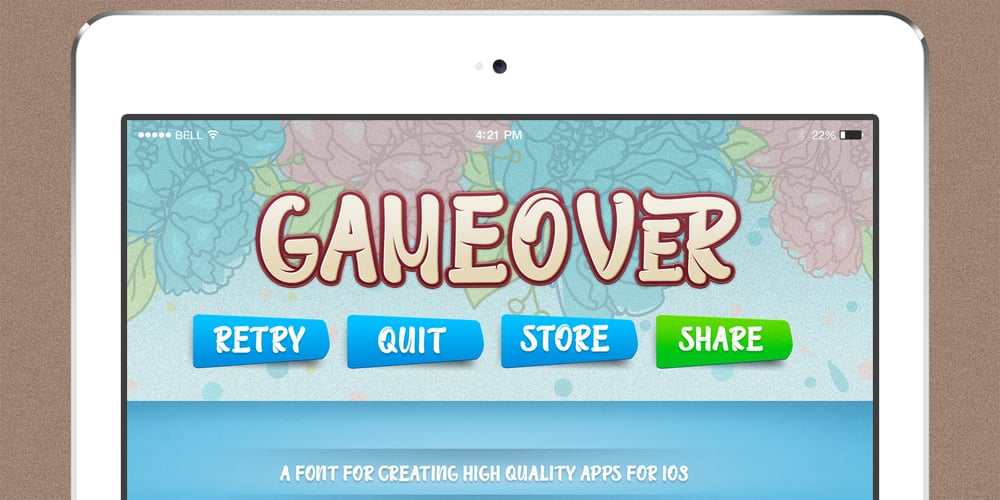
Tulipán Broken Caps Pro Font Family was designed by Felipe Calderón and published by Estudio Calderon. Tulipán Broken Caps Pro contains 1 styles and family package options. Tulipán Broken Caps Pro is new variable/complement of Tulipán Broken Caps, it includes 200 interesting ligatures, specially designed for games, apps, books, logos and packaging. Its bold structure is perfect to give great effects.